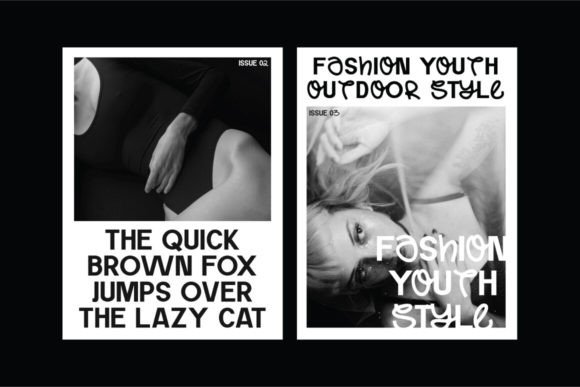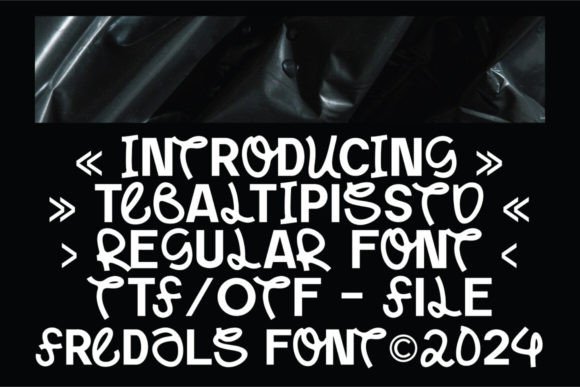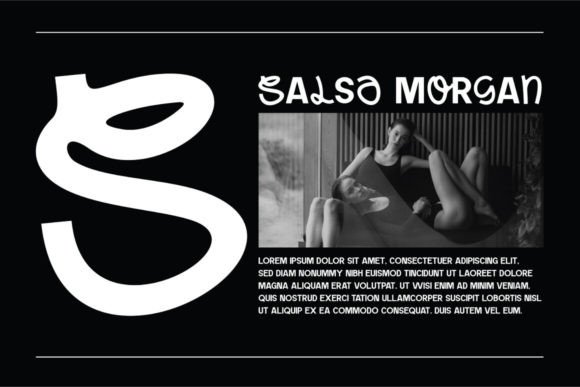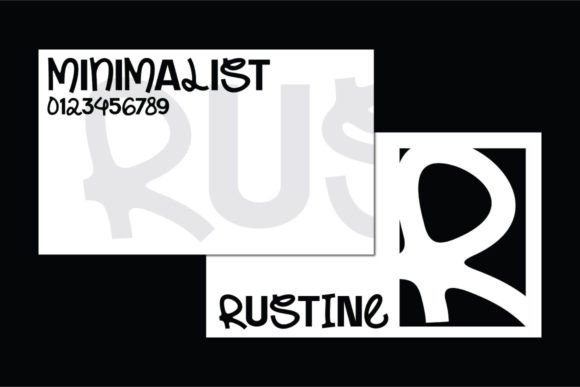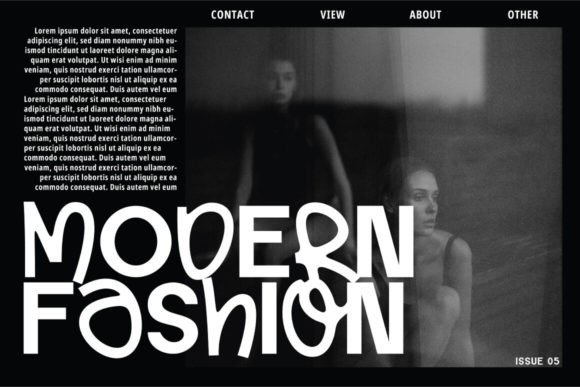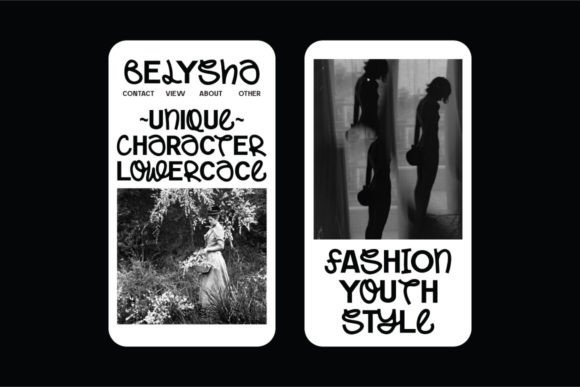
Have you ever stared at a blank canvas, feeling stuck and unsure of where to begin? That’s exactly what happened to many designers when they first laid eyes on the Fredals Experimental Font. This casual sans font is more than just a typeface – it’s a game-changer for creatives looking to elevate their work.
The Fredals Font is an experimental and unique font that seamlessly blends strength and playfulness, making it the perfect choice for designers seeking an elegant touch. With its stylish curves and modern visual design, this font is sure to make your projects stand out from the crowd. Whether you’re working on logos, advertisements, or magazine layouts, the Fredals Font has got you covered – and that’s what makes it so valuable for designers like you.
Fredal’s Font Key Features
- Font Family: Fredal’s Font is a unique, handwritten script font.
- Character Set: The font includes a wide range of characters, including Latin, Cyrillic, and Greek alphabets, as well as punctuation and symbols.
- Unique Characteristics: Fredal’s Font features a distinctive, hand-drawn look with subtle variations in letterforms, giving it a personal and artistic feel.
Review of Fredals Font
Overall, I think Fredals Font has a lot to offer, but it also has some limitations that prevent it from reaching its full potential.
- Unique and quirky design: Fredals Font has a distinctive feel that sets it apart from more generic fonts.
- Good legibility: Despite its unique design, the font is still easy to read, making it suitable for a wide range of applications.
- Highly customizable: Fredals Font offers a range of weights and styles, making it easy to find the perfect fit for your project.
- Limited language support: Fredals Font may not be suitable for projects that require support for multiple languages.
- Not ideal for small text: While the font is legible, it may not be the best choice for small text sizes, as the details can get lost.
- May not be suitable for formal projects: Fredals Font’s quirky design may not be suitable for formal or professional projects, where a more traditional font may be preferred.
Overall, I think Fredals Font is a great choice for projects that require a unique and quirky design. However, it may not be the best choice for projects that require formal or professional typography.
Tips for Getting the Most Out of Fredals Font
Here are some tips for getting the most out of Fredals Font:
- Use it for headings and titles to add a touch of elegance.
- Combine it with other fonts for a unique and creative look.
- Experiment with different font sizes and styles to achieve the desired effect.
Fredals Font is ideal for:
- Branding and logo design.
- Editorial and publishing design.
Alternatives to Fredals Font
1. Merriweather
Merrriweather is a classic serif font ideal for body text, especially in publications and books. It’s highly legible and works well in both print and digital formats.
Comparison to Fredals Font: While both fonts are serif, Merriweather is more traditional and formal, whereas Fredals Font has a more modern feel. Merriweather is better suited for longer texts, while Fredals Font is more versatile and can be used for titles and short paragraphs.
Lato is a modern sans-serif font that works well for titles, headings, and short paragraphs. It’s highly readable and versatile, making it a popular choice for digital design.
Comparison to Fredals Font: Lato is a sans-serif font, whereas Fredals Font is a serif font. While both fonts are modern and clean, Lato is more suitable for digital design and has a more neutral feel, whereas Fredals Font has a unique, hand-drawn feel.